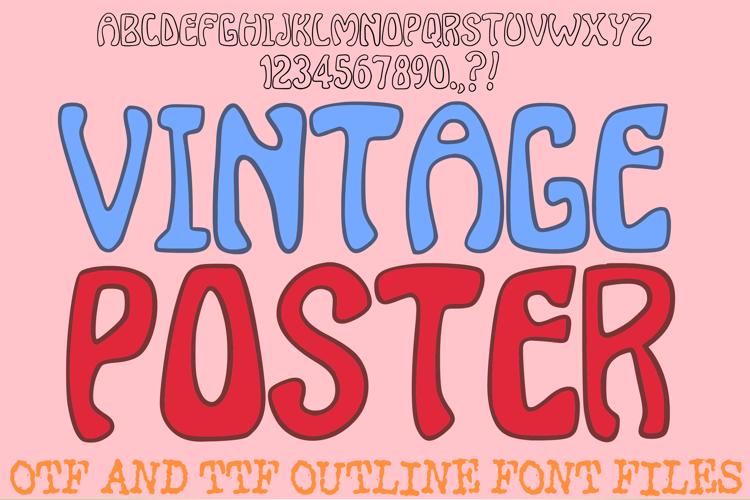
The Vintage Poster Lettering Font is a groovy, hand-drawn display typeface that captures the soulful, psychedelic energy of 1960s and 70s retro design. Featuring bold, melting silhouettes and liquid-like swirly flourishes, this font is a perfect choice for music festival posters, retro-themed apparel, funky branding, and high-impact digital art.
Each character is meticulously designed with a fluid, artisan feel, blending thick, organic curves with a playful sense of movement that makes your text dance across the page. Whether you are a designer creating a vintage boutique logo or a crafter working on vibrant sublimation projects, the Vintage Poster Lettering Font delivers a timeless, nostalgic aesthetic that is both bold and soulful.
Retro Liquid Aesthetic: Every letter (A–Z) and number (0–9) features unique, melting curves that mimic the iconic psychedelic poster art of the past.
High-Impact Boldness: The heavy weight and hand-drawn outlines make your headlines pop, even when paired with busy, colorful backgrounds.
Versatile Graphic Asset: The clean, illustrative outlines are ideal for "color-in" projects, heat transfer vinyl, or high-quality sublimation printing.